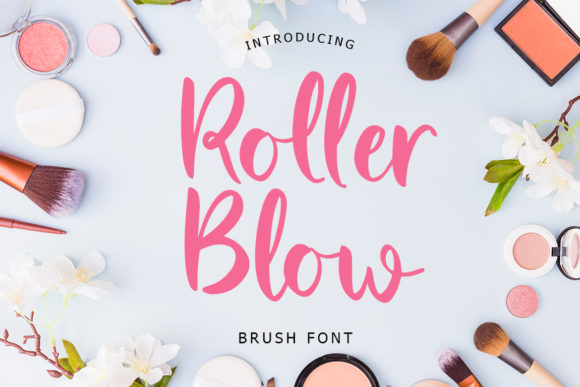
Dive into the world of modern calligraphy with Roller Blow Font, an exquisite handwritten font that exudes grace and charm. Its elegant curves and playful quirks create a captivating visual experience, adding a touch of sophistication to your designs. Crafted with precision using a brush pen, Roller Blow embodies the beauty of organic penmanship, evoking a sense of authenticity and artistry.
Step into a realm of endless creative possibilities with Roller Blow Font. Its versatility knows no bounds, making it the perfect choice for a multitude of projects. From enchanting wedding invitations and heartfelt greeting cards to eye-catching social media posts and remarkable DIY ventures, Roller Blow Font will elevate your designs to new heights.
Unleash your creativity and embrace the art of modern calligraphy with Roller Blow Font. Whether you're a seasoned designer or just starting your creative journey, this font will guide you effortlessly, inspiring you to produce stunning visuals that captivate and enchant.
With Roller Blow Font, you're not just adding words to your designs; you're crafting a visual symphony that speaks volumes. Its intricate details and enchanting flow will leave a lasting impression on your audience, making your projects unforgettable.
Roller Blow Font is more than just a font; it's an invitation to express yourself authentically and stylishly. Join the league of creative visionaries who have discovered the magic of Roller Blow, and let your designs bloom with grace and beauty.